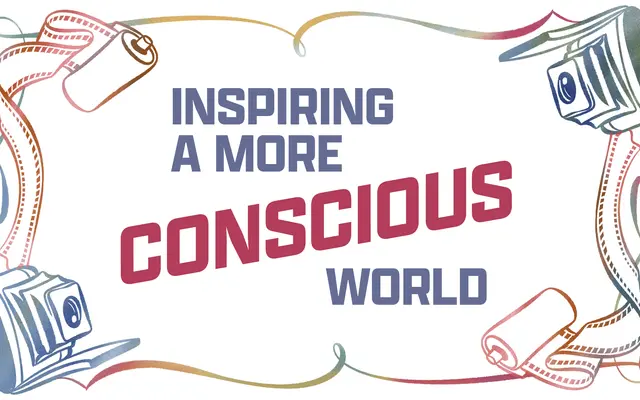
A large grotesque family rooted in the lettering of antique Norwegian medicine bottle labels, expanded across seven widths and seven weights with full italic coverage and variable font support.
Drawn from the commanding, quirk-filled uppercase lettering found on old Norwegian apothecary labels, Apotek has been developed into a vast system spanning Compressed through Extended widths, ExtraLight through Black weights, and matching italics throughout. The family is available as static fonts and as variable fonts with continuous axes for both width and weight. OpenType features include Rounded and Bowed alternates that bring the source material's idiosyncratic warmth closer to the surface.
A sans-serif with a commanding, characterful personality drawn from antique Norwegian apothecary label lettering; the sturdy uppercase-driven origins and range of widths place it firmly in the grotesque tradition with display leanings.